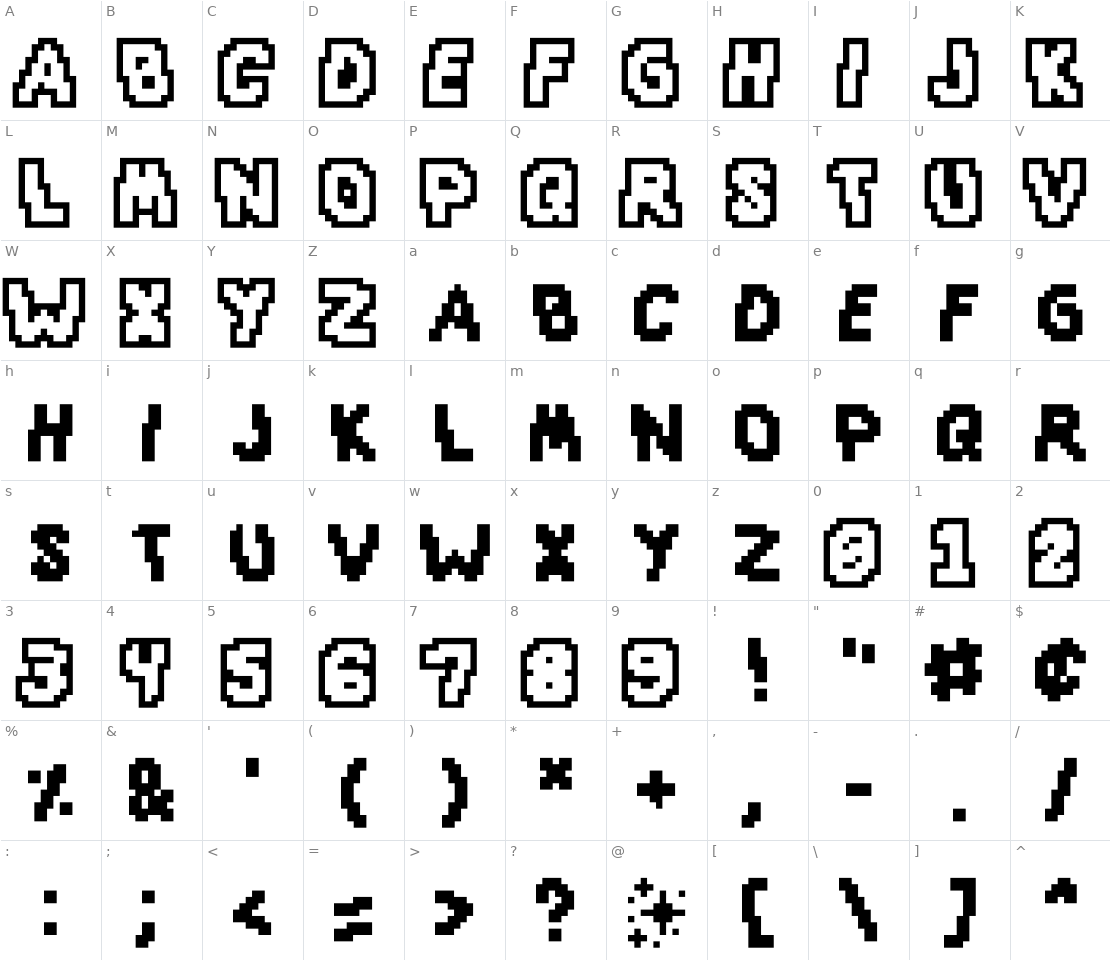
Slap And Crumbly
by Hazel Abbiati
Slap And Crumbly is a chunky bitmap display face from Hazel Abbiati with bold, blocky pixel letterforms that feel right at home in retro gaming contexts. The uppercase-only character set and heavy 8-bit construction give it an unapologetically lo-fi presence, built for headlines, game titles, and screen graphics where pixelated nostalgia is the whole point.